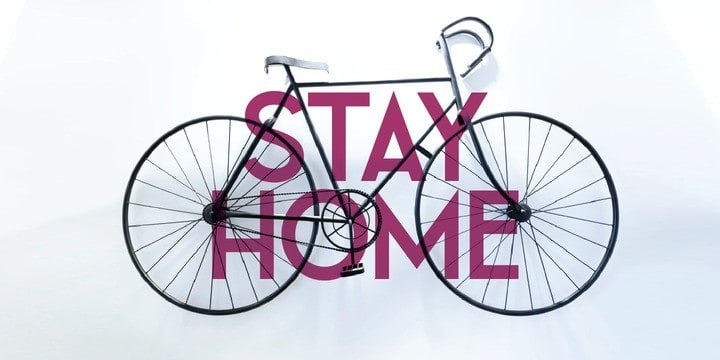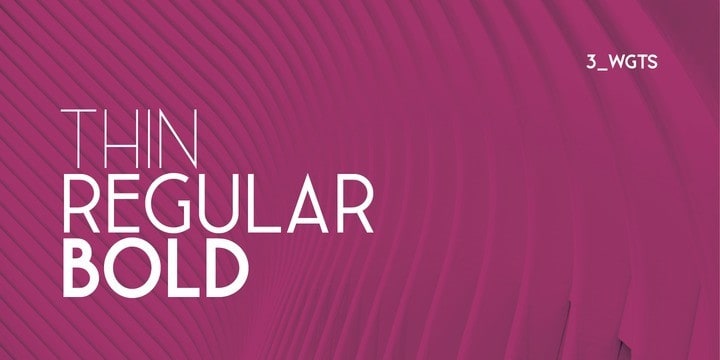
Leaner Sans Serif Font is a friendly geometric sans-serif font family, reduced to its essential attributes. It kindly supports your design whether it shows an excentric or average character, headline or caption. Leaner will always underline your creation with a decent look while it remains highly legible. Leaner font is suitable for logo design, modern movie writing, trademark names, and others.